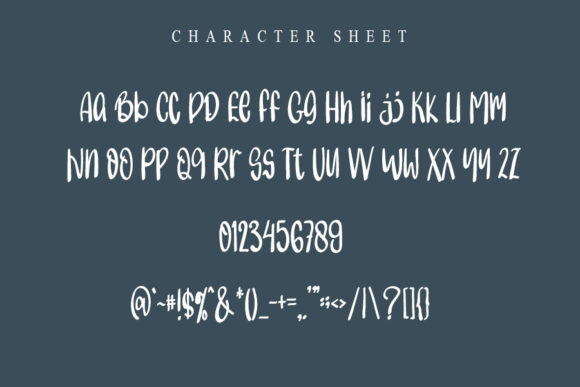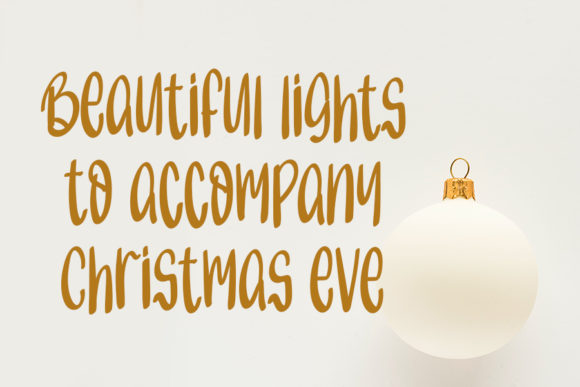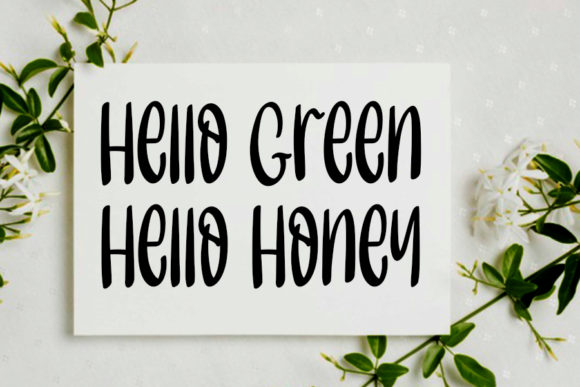
Speechless in Winter Font
About Speechless in Winter Font
Speechless In Winter is a clean and friendly handwritten font with beautiful and smooth lines. Its natural and unique style makes it incredibly fitting to a large pool of designs.